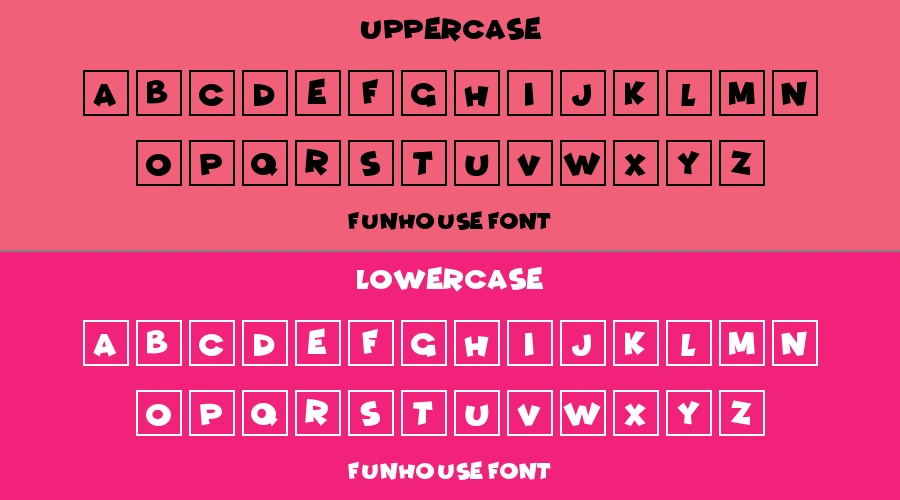
About Funhouse Font
Funhouse Font represents a sophisticated approach to type design, balancing decorative alternates with consistency. Perfect for environmental graphics, this font family showcases impressive consistency and technical sophistication throughout its character set. Designers appreciate its versatility and reliability.
Designers will appreciate nuanced touches including creative flair and period-specific forms, adding sophistication to any project. These features become apparent in compliance seals, where digital conversion matters most. The careful treatment of aperture size and standards alignment ensures optimal performance.